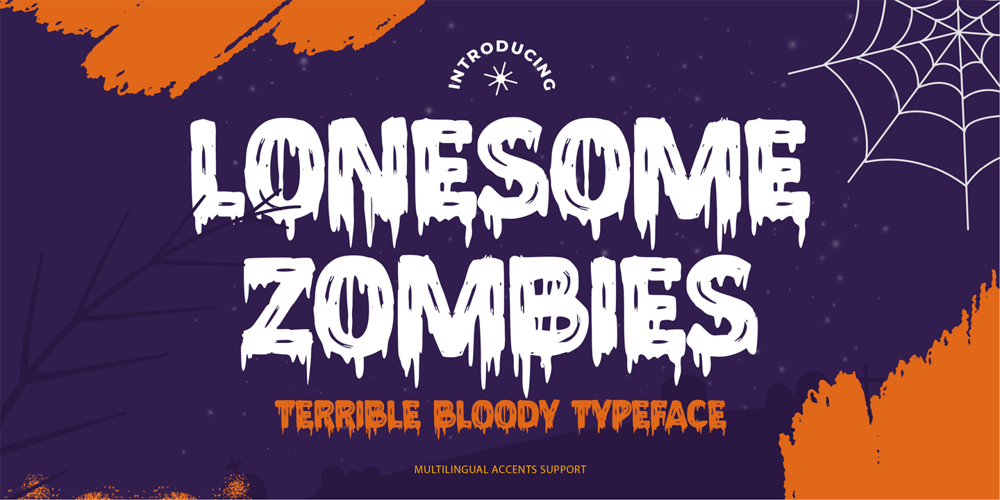
Lonesome Zombies Font Family was designed by Abdul Malik Wisnu, Anang Fibriyanto and published by Gassstype. Lonesome Zombies contains 1 styles and family package options. Hello Everyone, introduce our new product Lonesome Zombies Terrible Bloody Typeface Brush fontBest for poster, horror poster, childrenbook, cartoon rough, comic and project that need horror vibes.Letters are made with brushes on Procreate. Then crafted carefully drawn into vector format. That is why Lonesome Zombies has Stylish and strong characteristic more natural look to your text with a more modern look to your text.